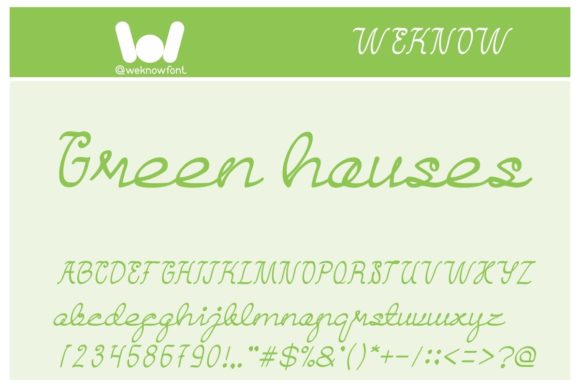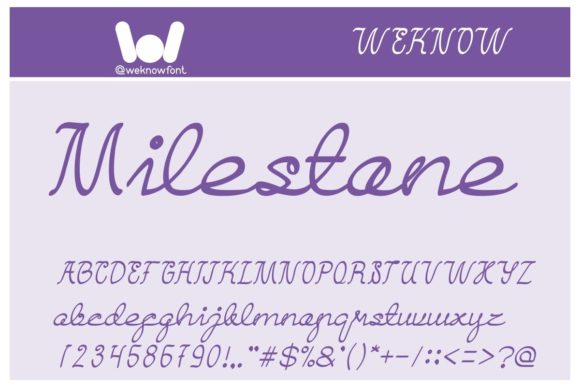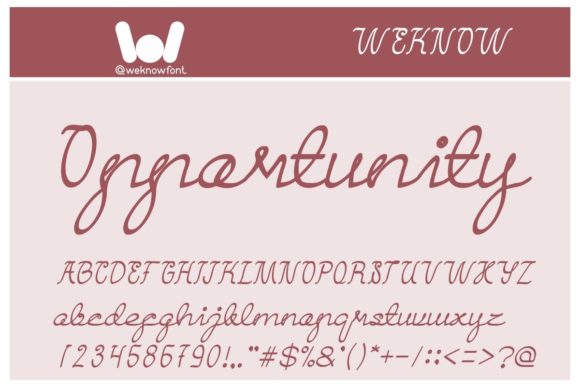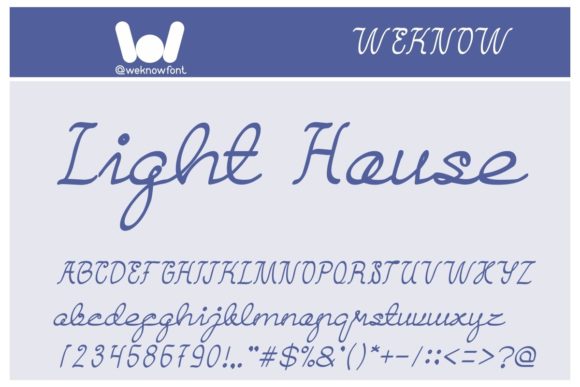
Introducing Dear Diary Font: A Delicate and Cursive Handwritten Font
Are you a designer or crafter looking for a font that can add a touch of elegance and romance to your projects? Look no further than the Dear Diary font. This beautiful, delicate, and cursive handwritten font is perfect for a variety of design ideas and is sure to bring a joyful and romantic touch to each of your creations.
What is Dear Diary Font?
Dear Diary font is a type of script font that is designed to mimic the look of handwritten text. It is a cursive font that features flowing lines and delicate strokes, giving it a soft and feminine touch. The font is perfect for designers and crafters who want to add a personal and intimate feel to their projects.
Key Features of Dear Diary Font
So, what makes Dear Diary font so special? Here are some of its key features:
- Delicate and cursive: The font features delicate and cursive strokes that give it a soft and feminine touch.
- Handwritten: The font is designed to mimic the look of handwritten text, making it perfect for projects that require a personal touch.
- Versatile: Dear Diary font can be used on a variety of design ideas, from wedding invitations to social media graphics.
- Easy to read: Despite its delicate nature, the font is easy to read and understand, making it perfect for body text and headings.
Uses of Dear Diary Font
Dear Diary font is a versatile font that can be used on a variety of design ideas. Here are some of the ways you can use this beautiful font:
- Wedding invitations: The font’s romantic and elegant touch makes it perfect for wedding invitations, save-the-date cards, and other wedding-related designs.
- Social media graphics: Use Dear Diary font to create beautiful social media graphics, such as quotes, inspirational messages, and promotional graphics.
- Blog and website headers: Add a touch of elegance to your blog or website headers with Dear Diary font.
- Stationery and greeting cards: The font is perfect for creating beautiful stationery and greeting cards for special occasions.
Tips for Using Dear Diary Font
Here are some tips for using Dear Diary font effectively:
- Use it with contrasting fonts: Pair Dear Diary font with contrasting fonts to create visual interest and hierarchy.
- Experiment with colors: The font looks beautiful in a variety of colors, so don’t be afraid to experiment and find the perfect color for your design.
- Use it for headings and titles: Dear Diary font is perfect for headings and titles, but you can also use it for body text for a more elegant look.
In conclusion, Dear Diary font is a beautiful and delicate cursive handwritten font that can add a joyful and romantic touch to your design projects. Its versatility, elegance, and ease of use make it a must-have font for designers and crafters. Whether you’re creating wedding invitations, social media graphics, or blog headers, Dear Diary font is sure to impress.